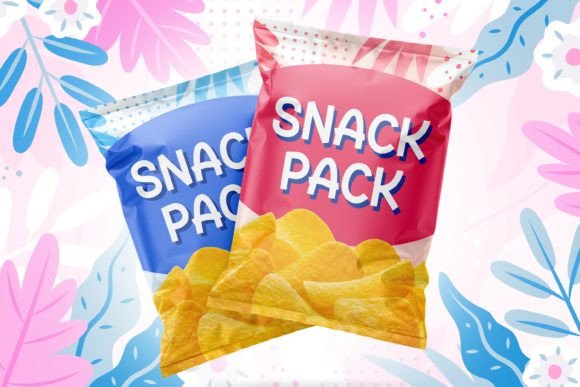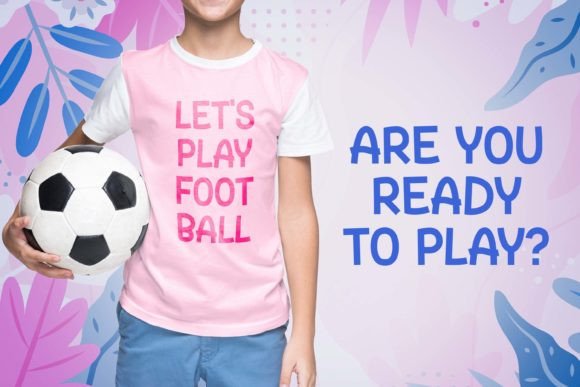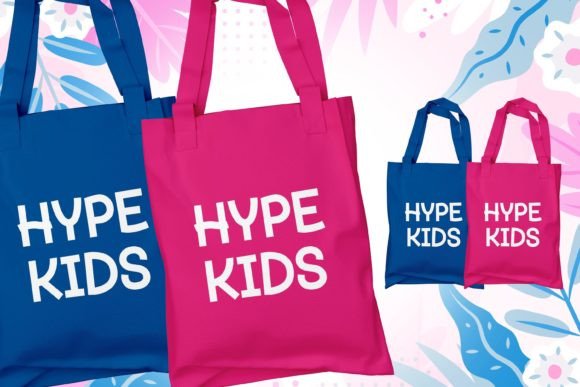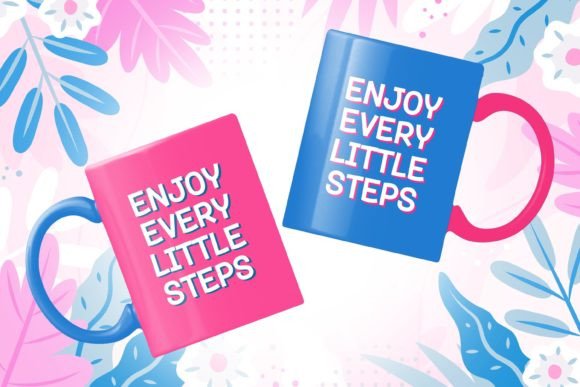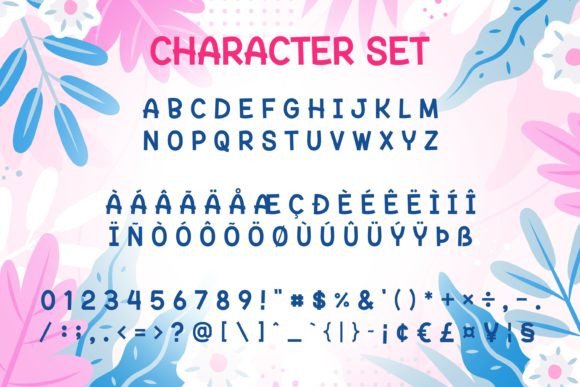
The Designer’s Delight: Bright Friday Font
I’ll never forget the time I was working on a project for a children’s birthday party, and I just couldn’t find the right font to match the playful vibe of the design. The client wanted something fun, bubbly, and full of personality, but every font I tried seemed either too boring or too over-the-top. That’s when I stumbled upon Bright Friday, a fun and unique sans-serif font that instantly brought my design to life. With its bubbly curves and friendly demeanor, each letter is bursting with personality and charm.
An Honest Review of Bright Friday
- ✅ Unique and playful design that’s perfect for creative projects
- ✅ Works well for both digital and print designs
- ✅ Easy to pair with other fonts for a cohesive look
- ⚠️ Some letters may appear a bit narrow or wide, depending on the font size
- ⚠️ Limited availability of extended language support
The Story Behind Bright Friday
Bright Friday was designed by a team of creatives who wanted to create a font that would bring a sense of joy and playfulness to any project. Inspired by the bright and cheerful colors of a Friday morning, the team set out to create a font that would capture the essence of a fun and carefree day. With its bubbly curves and friendly demeanor, Bright Friday is the perfect font for designers who want to add a touch of whimsy to their designs.
Q: What type of projects is Bright Friday best suited for?
A: Bright Friday is perfect for creative projects that require a playful and fun font, such as children’s designs, party invitations, and social media graphics.
Q: Is Bright Friday available in different font weights?
A: Yes, Bright Friday is available in different font weights, including regular, bold, and italic.